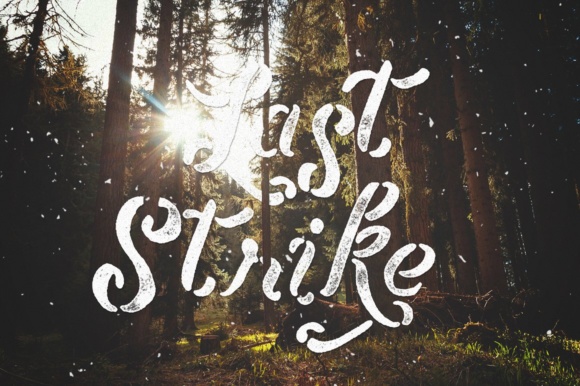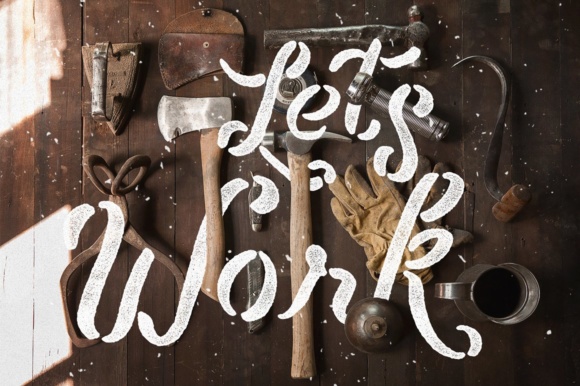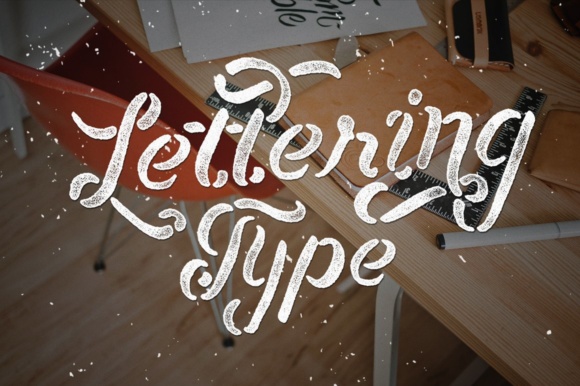
The Bladekade Font: A Hand-Drawn Stencil Script for Creative Projects
Have you ever been in the middle of a design project, and suddenly, you’re stuck on finding the perfect font? I recall a recent experience where I was working on a logo design for a client’s outdoor gear brand. The client wanted a bold, adventurous look that would stand out on their products. After hours of searching, I stumbled upon the Bladekade font, and it was love at first sight! 💡
The Bladekade is a stencil script font with a hand-drawn style that’s perfect for logo branding, clothing, posters, and much more! In this article, I’ll share my honest review of the font, provide a practical guide on how to use it, and explore similar fonts that you might enjoy.
- Unique, hand-drawn style with a stencil script feel 📝
- Perfect for bold, eye-catching designs that require a touch of adventure 🎉
- Works well for logos, branding, clothing, and posters 👕
- OpenType features, glyphs, and stylistic alternates for added versatility 🔍
- May not be suitable for body text or long paragraphs due to its bold and stencil nature 📖
- Some characters might be a bit tricky to read at smaller font sizes 🔍
- Limited use of diacritics and special characters ⚠️
The Story Behind Bladekade: Designer Inspiration
The Bladekade font was inspired by the designer’s love of adventure and the great outdoors. With a passion for typography and a keen eye for detail, the designer aimed to create a font that would capture the essence of bold, daring designs. 💥
Q: What is the Bladekade font best used for?
A: The Bladekade font is perfect for bold, eye-catching designs such as logos, branding, clothing, and posters.